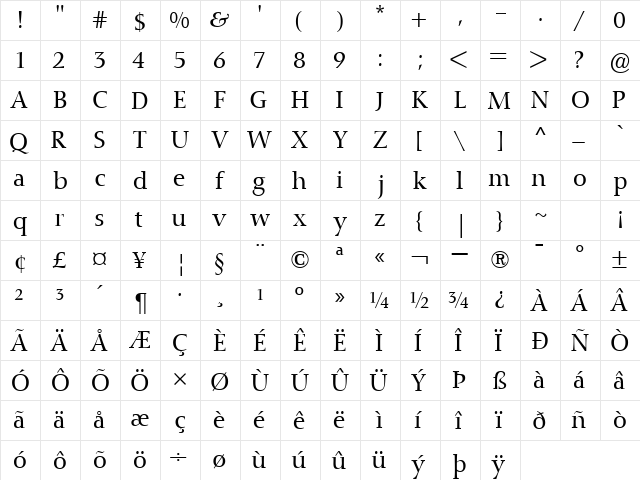
ConquistaSSK Regular
Design Context for ConquistaSSK Typeface
ConquistaSSK is a composed and adaptable typeface that performs quietly and consistently across a wide range of design contexts.